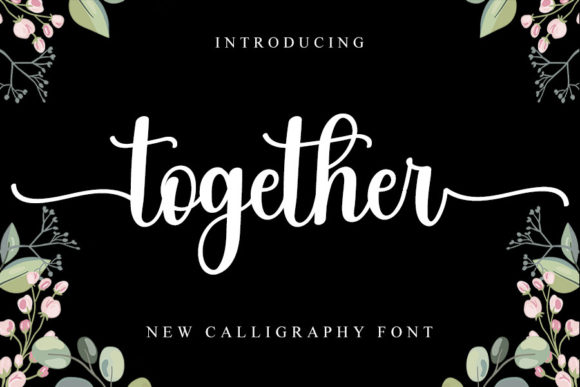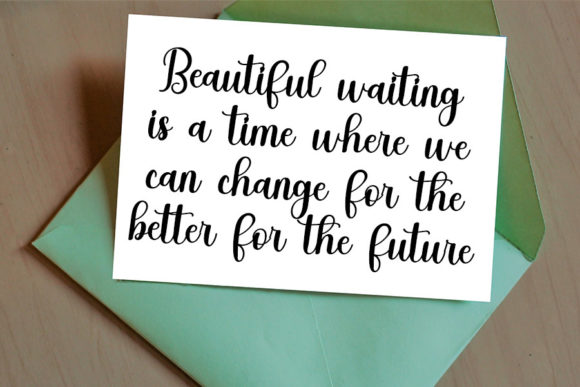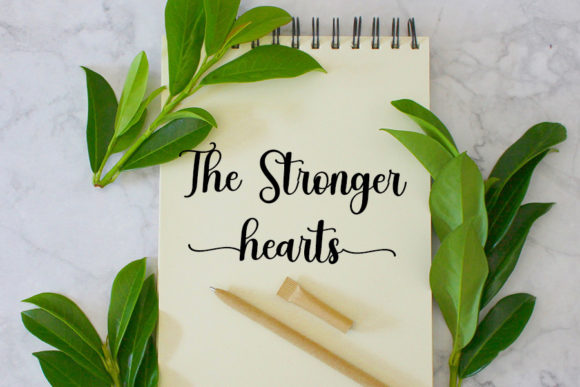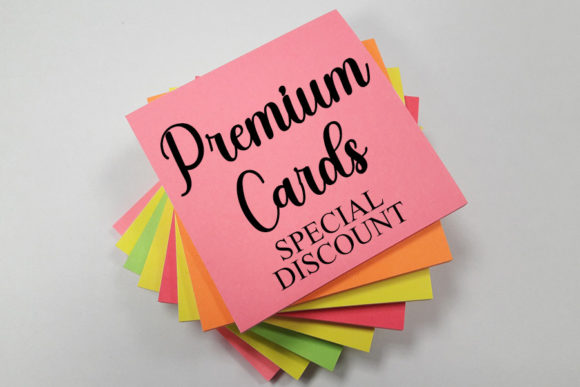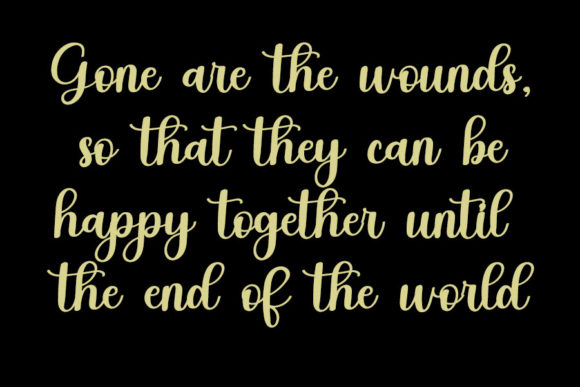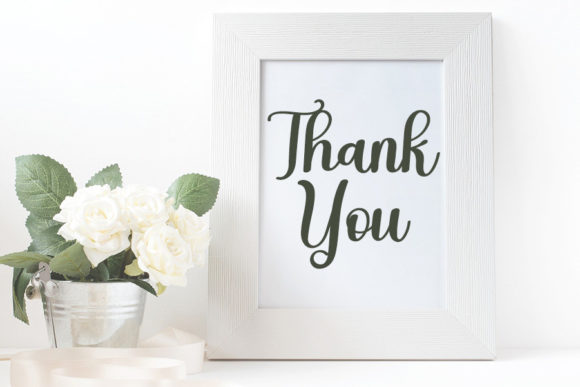
Together Font
About Together Font
Together is a sophisticated and stylish handwritten font that seamlessly blends modern aesthetics with the timeless elegance of classic calligraphy. Its impeccable form and exquisite details make it a perfect choice for a wide range of design projects. Whether you’re working on branding, invitations, logos, or any other creative endeavor, Together’s refined and contemporary atmosphere is sure to make a statement.
With its PUA (Private Use Area) encoding, Together provides easy access to a wealth of glyphs and swashes. This feature empowers you to effortlessly customize your designs with alternate characters, ligatures, and decorative elements, enhancing the overall visual appeal and giving your creations a distinct touch.
The versatility of Together makes it suitable for a variety of contexts and design styles. Its harmonious blend of modern and classic elements allows it to adapt seamlessly to different themes and concepts. Embrace the elegance and sophistication of Together to add a touch of timeless beauty to your projects and create designs that resonate with a contemporary audience while paying homage to the artistry of calligraphy.